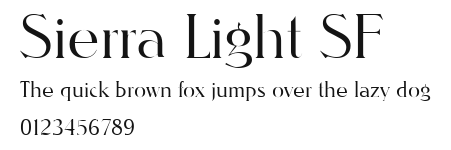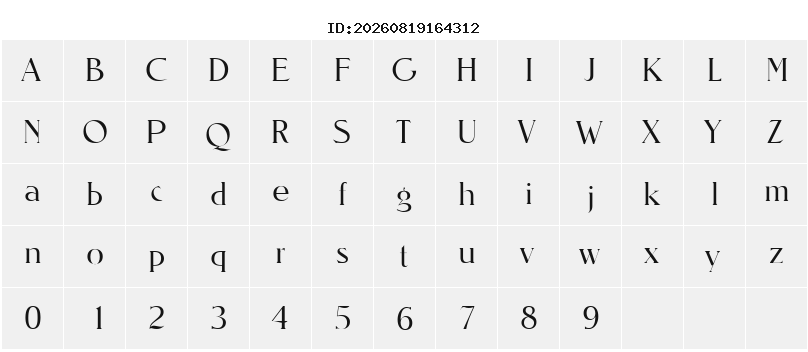
• Font Name: Sierra Light SF
• Font ID: Altsys Fontographer 3.5 NevadaLH Regular
• Full Font Name: Sierra Light SF
• Version: Altsys Fontographer 3.5 13.05.1994
• PostScript Name: SierraLightSF
• Character Count: 206
• Copyright: Generated by Fontographer 4.1
About Sierra Light SF.ttf
Sierra Light SF.ttf is a modern, elegant sans-serif font designed for ultimate readability and visual harmony. Perfect for branding, headlines, web design, and print materials.